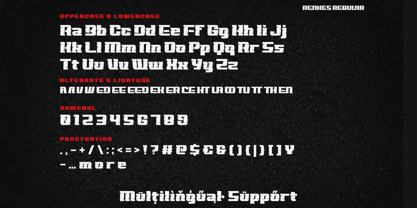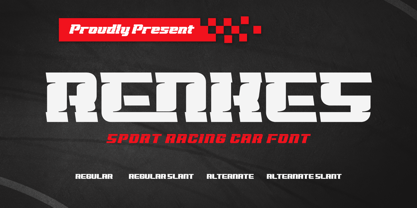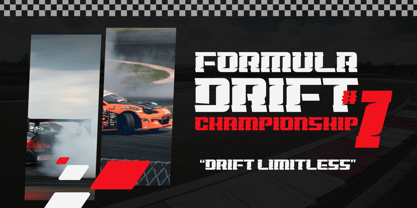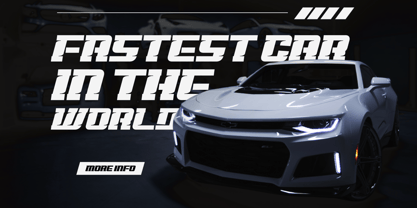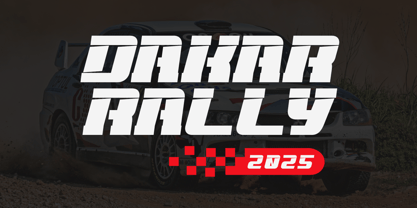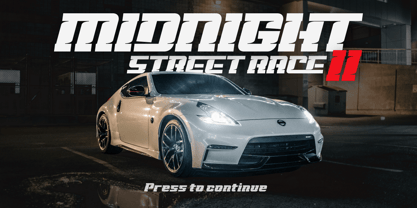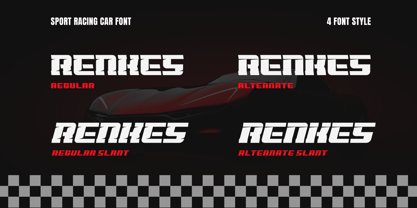
Renkes
by Twinletter
The Renkes Font Family was designed by Rozikan and published by Twinletter. Renkes contains 4 styles and family package options. More about this family
Fuel your designs with the dynamic and aggressive style of Renkes. Perfect for creating race schedules, team branding, racing posters, and even game merchandise, this font exudes speed and power.
Use Renkes for high-energy event promotion, sponsorship branding, or even racing game graphics. Its sharp edges and bold letterforms make it ideal for everything from car wraps to digital ad campaigns.
With multilingual support, it’s a versatile font for all your motorsport designs. Whether you're designing a race event poster or creating a logo for a racing team, Renkes will set your brand in motion.
- Fonts include Multilingual support.